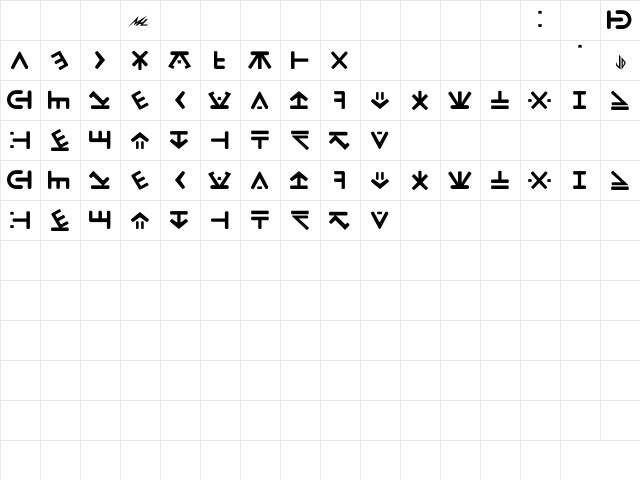
Drac Bold
Design Context for Drac Typeface
Drac takes a measured approach to typography — its balanced proportions and neutral character make it a reliable workhorse for both digital and print work. Its bold stroke weight gives it real presence on the page.